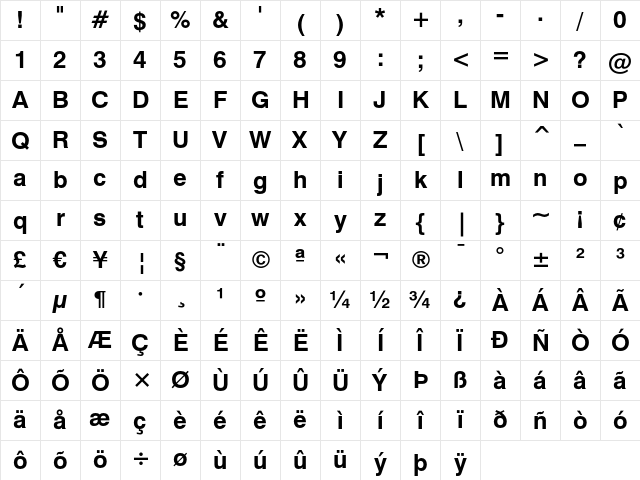
Swiss 721 Bold
Design Context for Swiss 721
Swiss 721 is a composed and adaptable typeface that performs quietly and consistently across a wide range of design contexts. Its bold stroke weight gives it real presence on the page.
Pro Tip: Use Swiss 721 in both headline and body roles to test its range before committing to a single application.